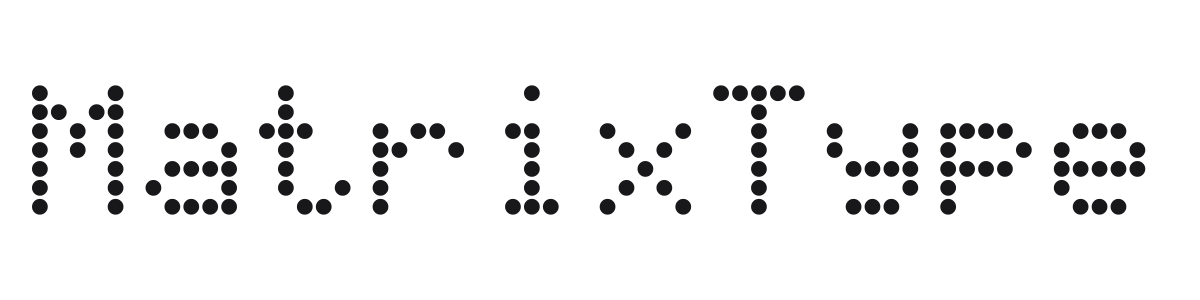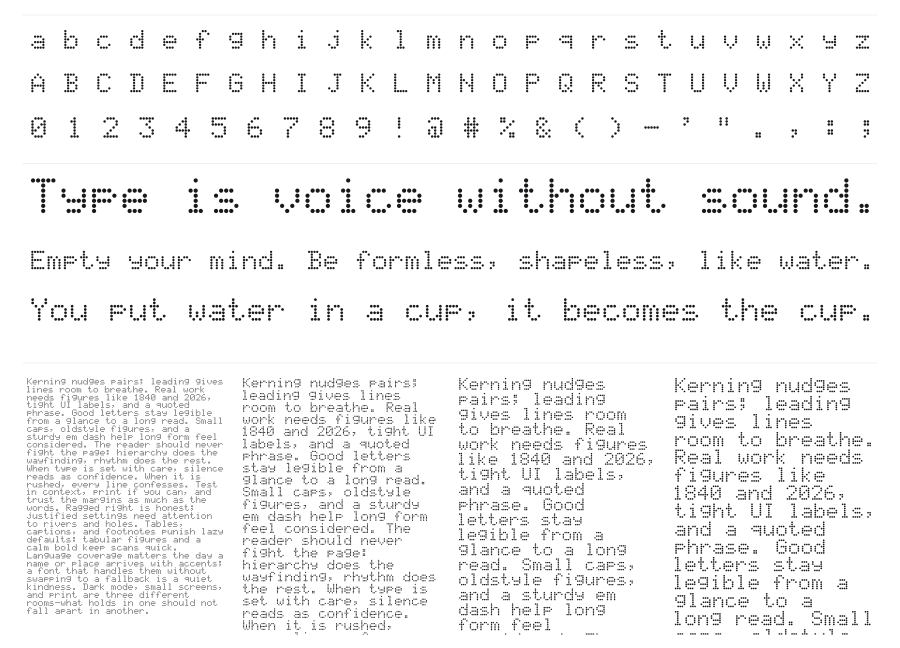
MatrixType
MatrixType is a dot-matrix display font built entirely from uniform circular dots on a strict grid, evoking the LED panels and thermal printers of the late 1970s and 1980s. Every character is a precise cluster of filled circles with no stroke variation, giving it a clean, systematic rhythm. It carries strong associations with early computing, digital scoreboards, and retro-futurist aesthetics.